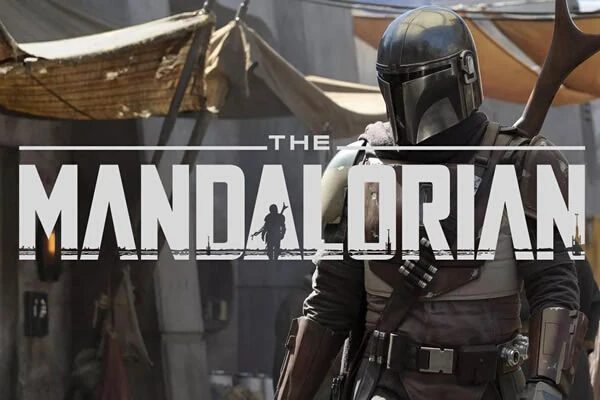
The name of the font used in the The Mandalorian logo is a typeface by the name of Mandalore. It was created in 2019 by the font designer Daniel Zadorozny and published via the Iconian Fonts foundary.
The Mandalorian is a television series that was produced for the Disney+ cable network, and first aired in November 2019. The series is set in outer space, and is one based on the action adventure film genre. It is based on the hugely popular Star Wars series by George Lucas. The main character in The Mandalorian is a lone bountry hunter who goes by the name of Pedro Pascal. It's for this reason that many people have also described the show as a Space Western. Other leading characters include: Greef Karga, The Client, Dr. Pershing, and Kuiil (using the voice of veteran actor Nick Nolte).